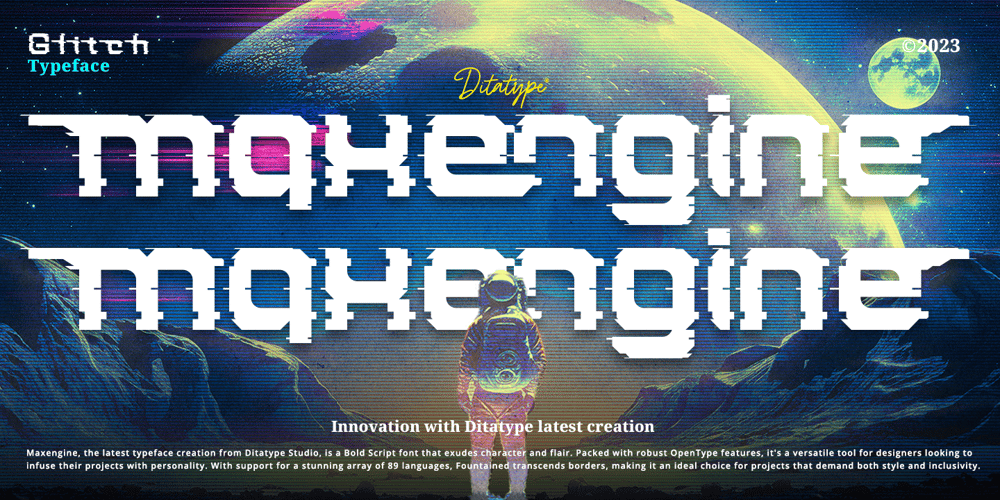
Maxengine Font Family was designed by Donis Miftahudin and published by Ditatype. Maxengine contains 1 styles and family package options. Maxengine is a bold script font that refuses to conform. This rebellious yet playful typeface marries boldness with a touch of whimsy, creating a dynamic and unique script that captures attention and refuses to be confined by traditional design norms.The characters in Maxengine boast a rounded shape, bringing a sense of friendliness and approachability to the bold script. What truly sets it apart is the intentionally uneven outline details, adding an element of spontaneity and creative flair to each letter. This unconventional approach results in a font that exudes personality and breaks away from the ordinary. In addition, enjoy the features here.Features: Ligatures Stylistic Sets Multilingual Supports PUA Encoded Numerals and Punctuations Maxengine fits in headlines, logos, posters, flyers, branding materials, greeting cards, print media, editorial layouts, and many more designs. Find out more ways to use this font by taking a look at the font preview.Thanks for purchasing our fonts. Hopefully, you have a great time using our font. Feel free to contact us anytime for further information or when you have trouble with the font. Thanks a lot and happy designing.